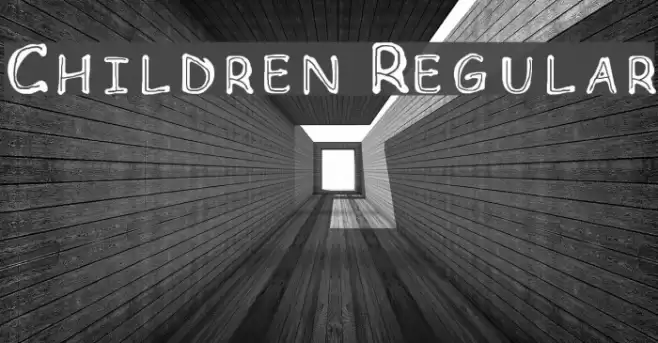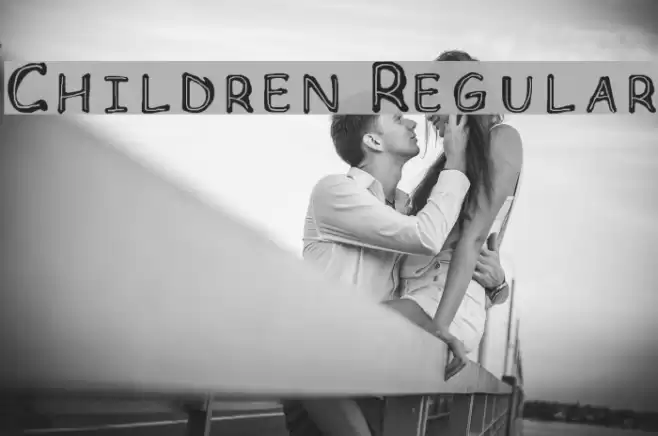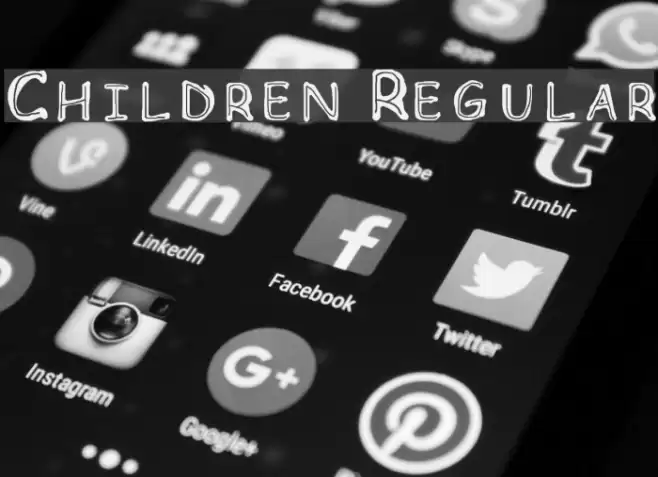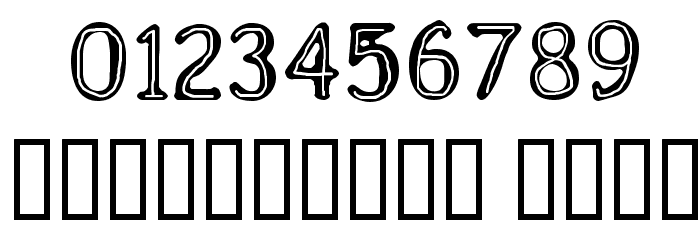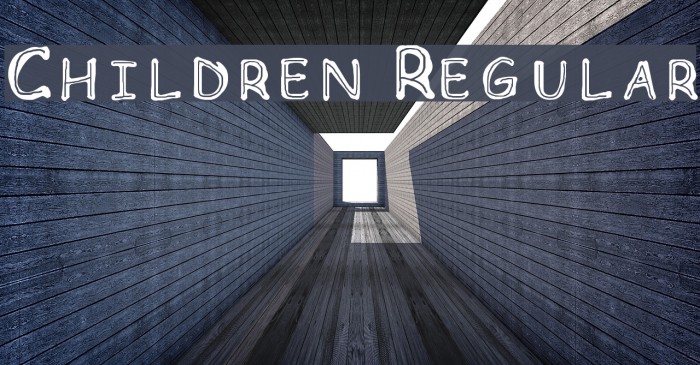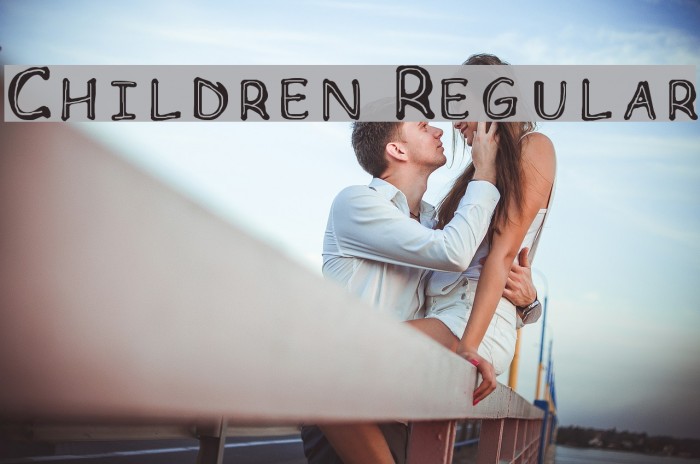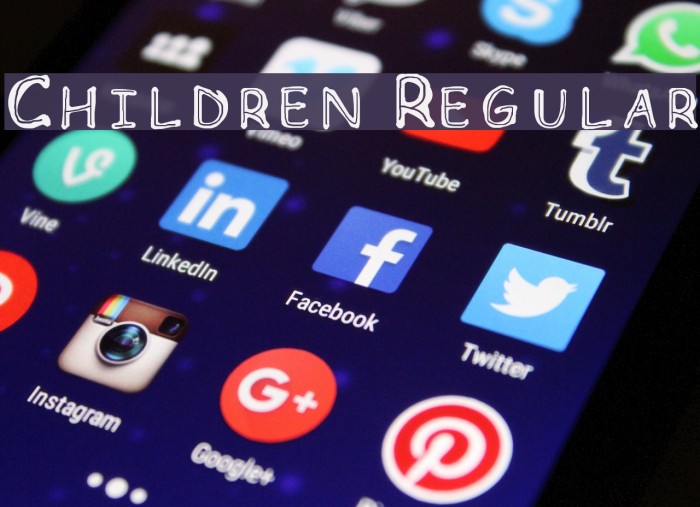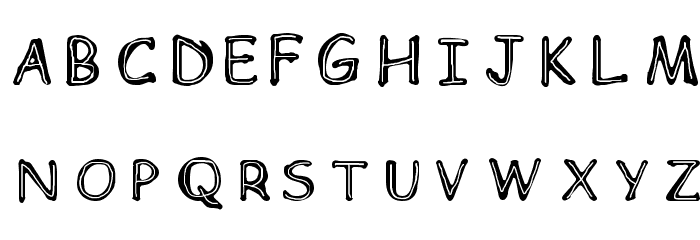
Children Regular Font
Children Regular Description
This playful and whimsical font features a hand-drawn style with a slightly irregular and organic appearance. The letters have a bold outline with a hollow interior, giving them a unique and eye-catching look. The uppercase and lowercase characters maintain a consistent style, with rounded edges and a casual, friendly vibe. The numerals follow the same playful design, making them suitable for children's materials or informal projects. The special characters are consistent with the overall theme, adding versatility to the font's use.
A playful, hand-drawn font with bold outlines and a whimsical style from Uncategorized fonts.
- Proposed Projects: Ideal for children's books, educational materials, playful branding, and creative posters.
- Overall Style: Playful